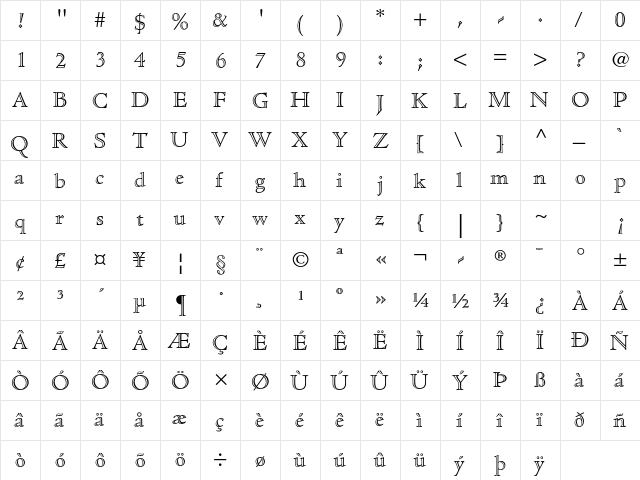
Cloister Std Open Face
| Style | Open Face |
| Designer | R. Hunter Middleton |
Design Context for Cloister Std Typeface
Cloister Std is a composed and adaptable typeface that performs quietly and consistently across a wide range of design contexts.